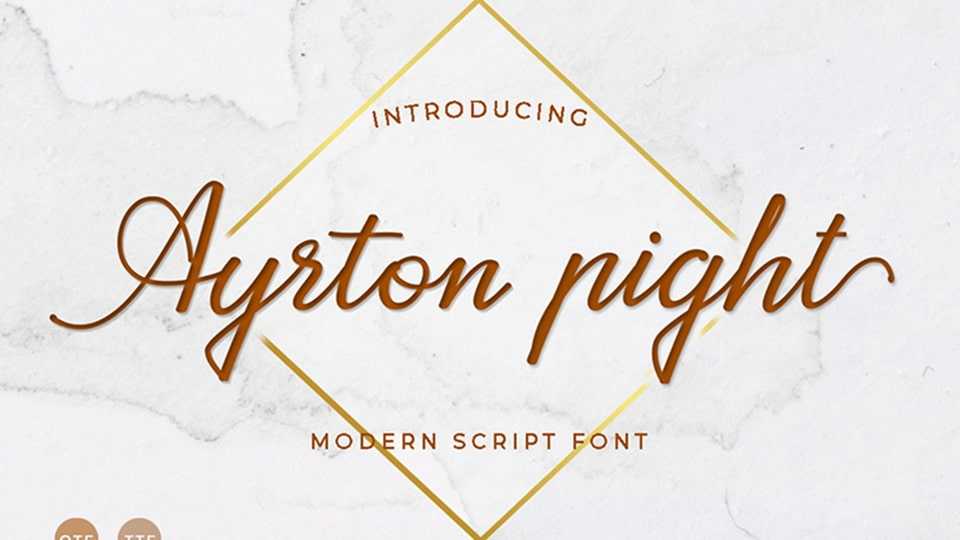
Download Ayrton Pight font, a calligraphic typeface that comes with beautiful characters, a type of modern hand-rubbed calligraphy script, designed with high detail to bring stylish elegance.
Designer: Attract Studio